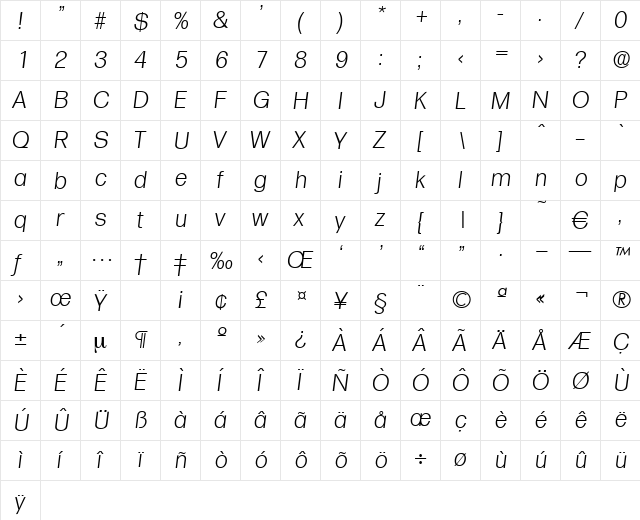
Formula-LightIta Regular
Design Context for Formula-LightIta Typeface
Formula-LightIta is a composed and adaptable typeface that performs quietly and consistently across a wide range of design contexts. Its slender proportions lend an understated elegance to any composition.